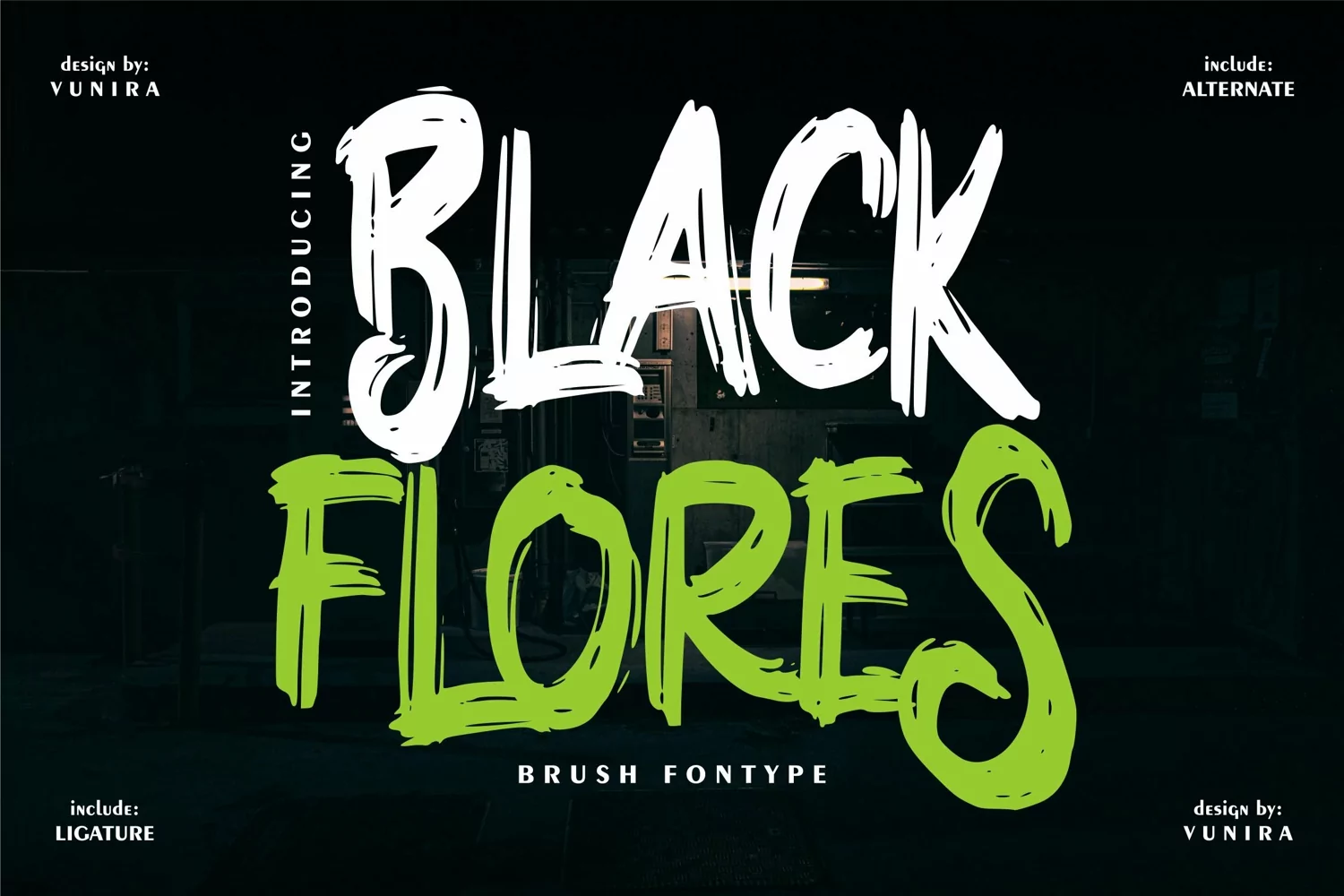
Black Flores | Brush Fontype
**Black Flores | Brush Fontype** with a calligraphy style, So beautiful on invitation like greeting cards, branding materials, business cards, quotes, posters, and more!
* Tons of glyphs
* Alternates and Ligatures
* Punctional
* Fonts include **Multilingual Support**